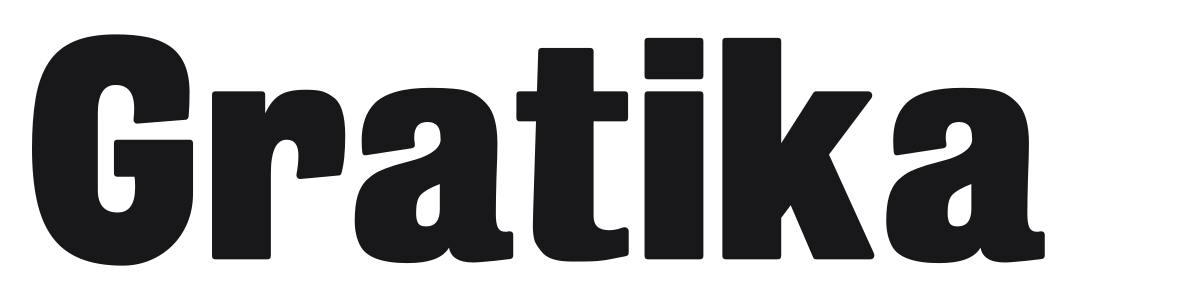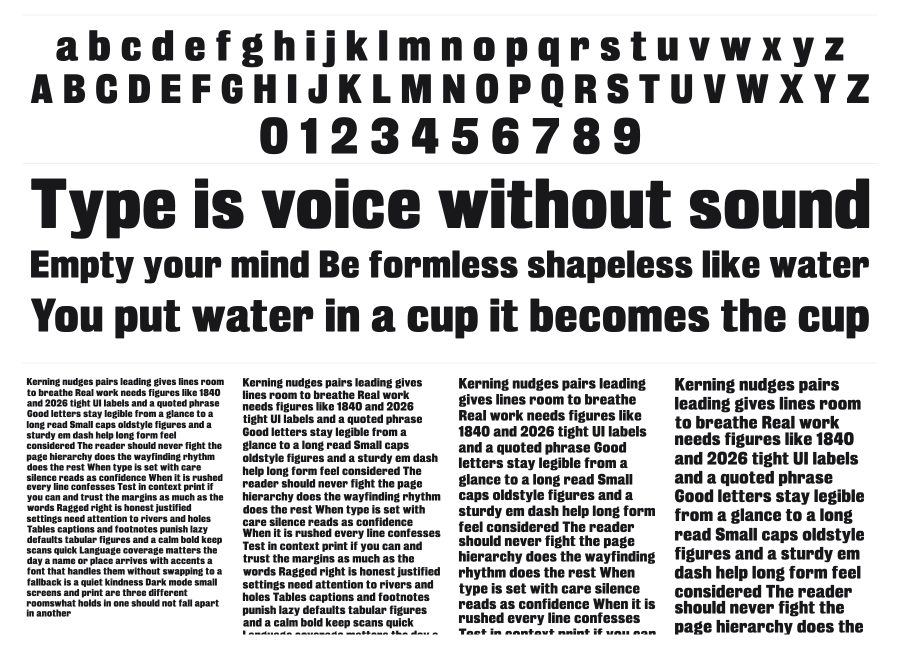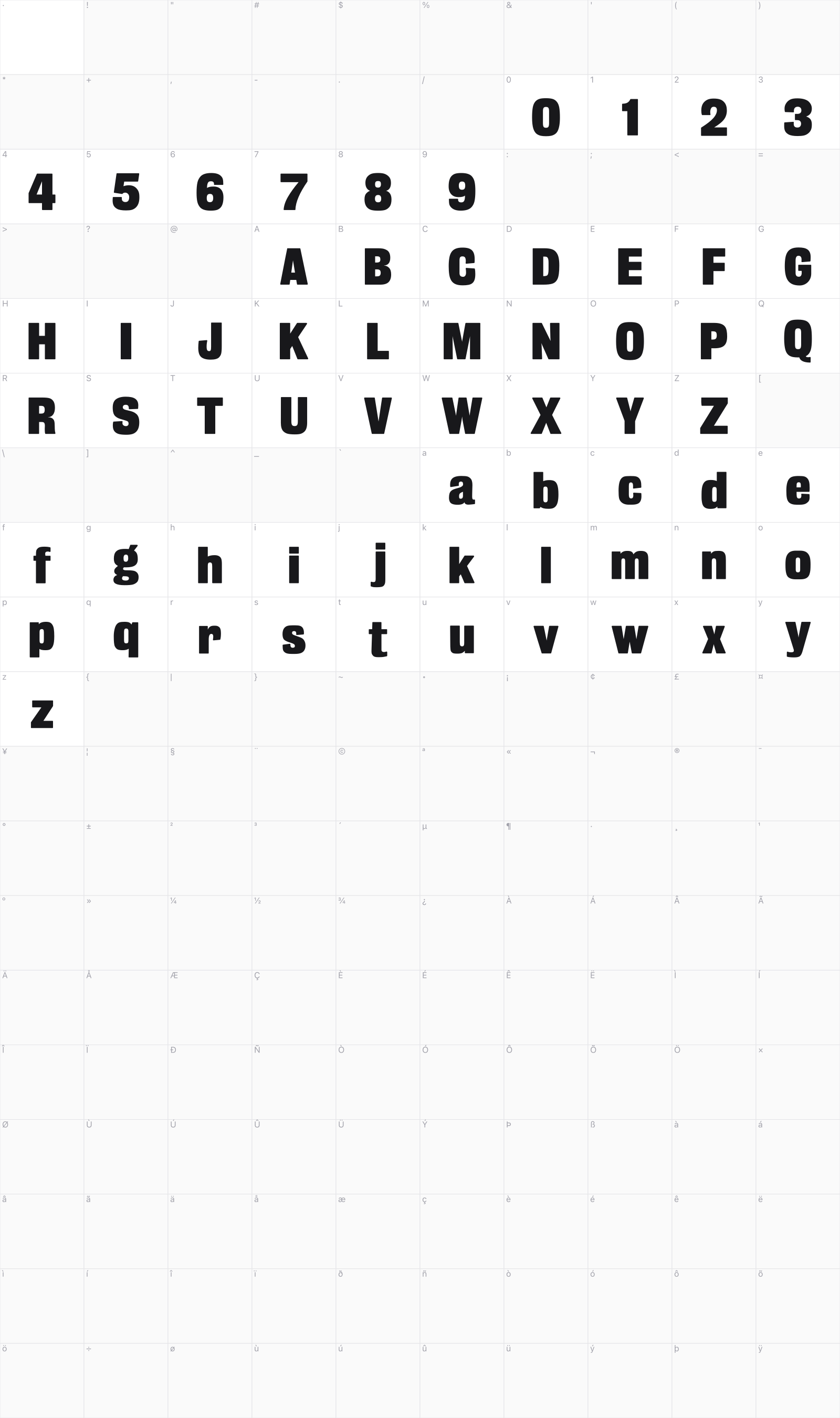
Gratika
Gratika is a heavy condensed grotesque sans with tight proportions and a commanding black weight. The characters hold their openness despite the extreme density, keeping text readable even when stacked or set large. Built for headlines, posters, and any context where typographic weight does the talking.